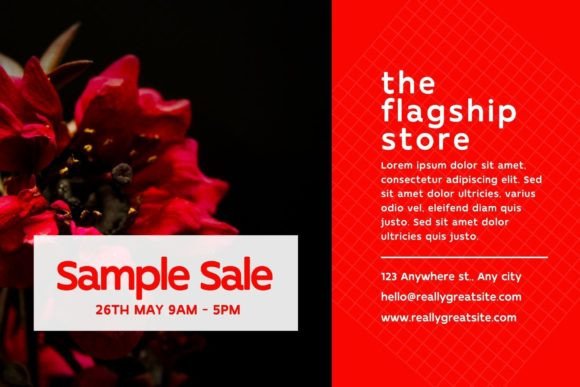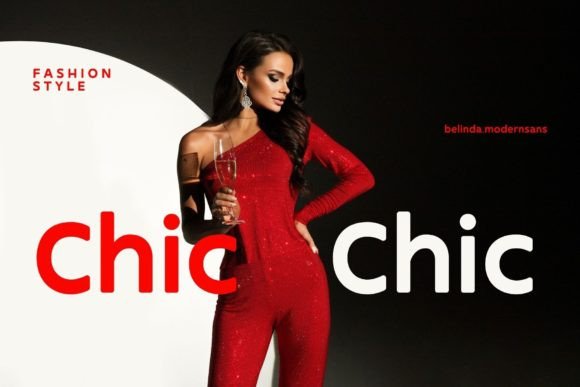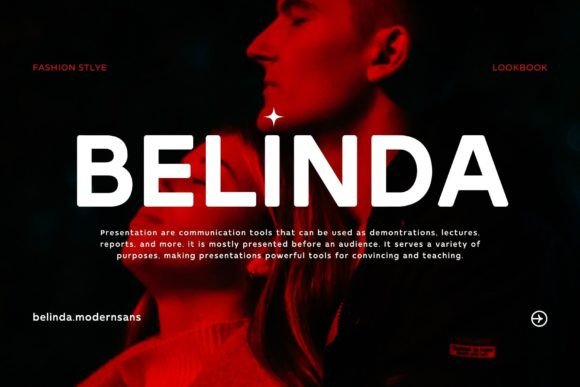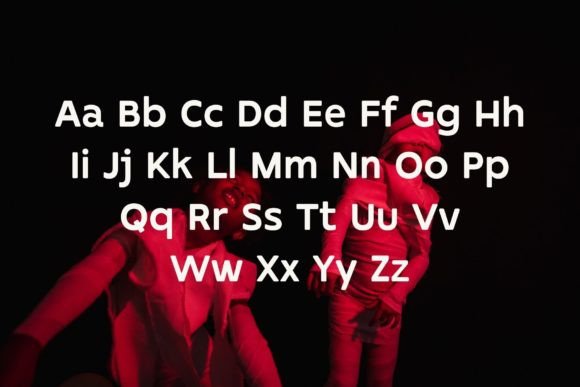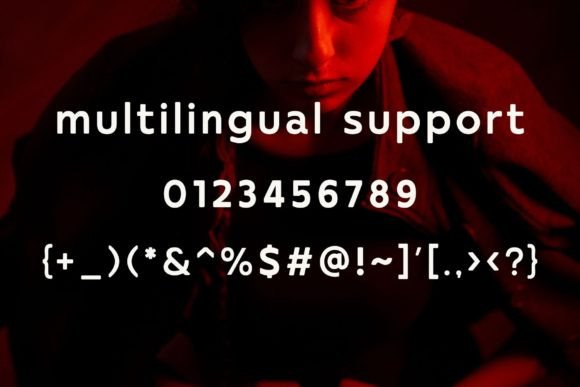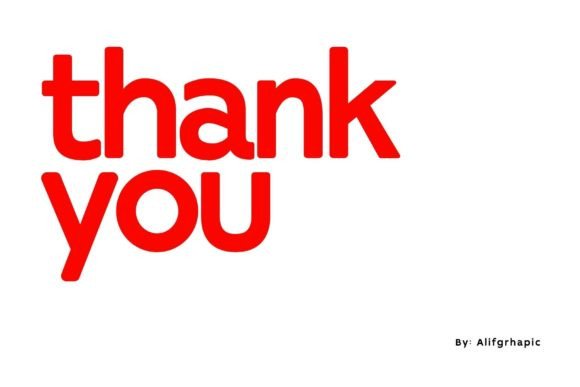
Introducing Belinda Font: The Epitome of Modern Sans-Serif Elegance
In the realm of typography, the right font can elevate a design from ordinary to extraordinary. For those seeking a modern sans-serif font that embodies sleek simplicity and timeless elegance, look no further than Belinda. This contemporary font is meticulously crafted to bring a sense of modern sophistication to any design project, making it an indispensable tool for designers and crafters alike.
The Essence of Belinda Font
Belinda is more than just a font; it’s a statement of modernity and refinement. Its clean lines and uncluttered appearance make it the perfect choice for projects that demand a high level of sophistication. Whether you’re working on branding, editorial projects, or digital applications, Belinda’s versatility and clarity shine through, ensuring your message is conveyed with precision and style.
Key Features of Belinda Font
- Modern Sans-Serif Design: Belinda boasts a contemporary sans-serif design that is both sleek and elegant, making it ideal for modern design projects.
- Clean Lines: The font’s clean and clear lines ensure excellent readability across various mediums, from print to digital.
- Versatility: Belinda’s versatility makes it suitable for a wide range of applications, including branding, editorial projects, and digital content.
- Timeless Elegance: Despite its modern appeal, Belinda possesses a timeless quality that ensures it won’t go out of style anytime soon.
Applications of Belinda Font
Belinda’s adaptability makes it a valuable asset for various design projects. Here are some of the areas where Belinda truly excels:
- Branding: Use Belinda to create a strong, modern brand identity that communicates sophistication and elegance.
- Editorial Projects: Enhance your editorial designs with Belinda’s clean and readable appearance, perfect for articles, magazines, and books.
- Digital Applications: From websites to mobile apps, Belinda’s clarity and modern appeal make it an excellent choice for digital content.
Why Choose Belinda Font?
In a world where design trends are constantly evolving, having a font that can keep pace is invaluable. Here are a few reasons why Belinda stands out:
- Universal Appeal: Belinda’s design resonates with a wide audience, making it perfect for projects aimed at a broad demographic.
- Minimalist Charm: The font’s minimalist design ensures that your message takes center stage, uncluttered by unnecessary embellishments.
- Fresh and Polished Look: Belinda brings a fresh and polished aesthetic to any design, ensuring your projects stand out with a contemporary edge.
Belinda font is a game-changer for designers and crafters looking to infuse their projects with a sense of modern sophistication. Its unique blend of sleek simplicity and timeless elegance makes it an indispensable tool in the world of typography. Whether you’re aiming to create a strong brand identity, enhance your editorial designs, or elevate your digital content, Belinda is the perfect choice. Embrace the minimalist charm of Belinda and discover a new level of typographic excellence.
With Belinda, you’re not just choosing a font; you’re adopting a design philosophy that values clarity, elegance, and modernity. Make the smart choice for your next design project and let Belinda bring its unique blend of sophistication and style to your work.